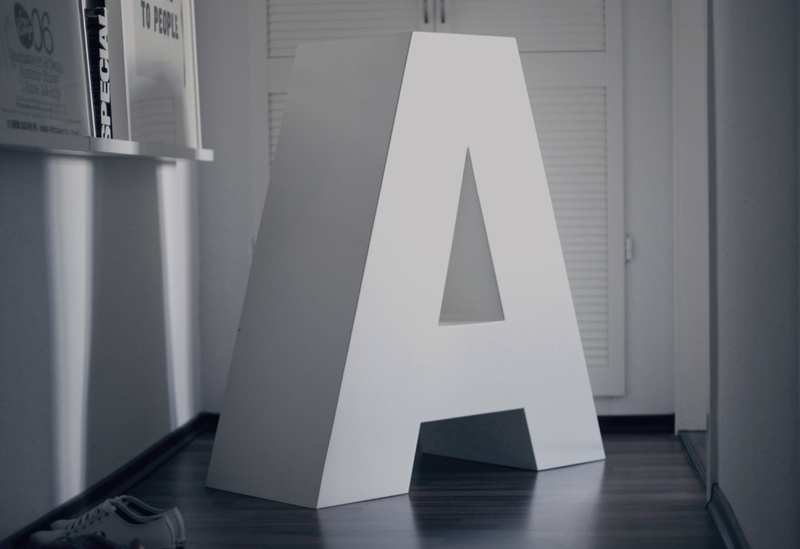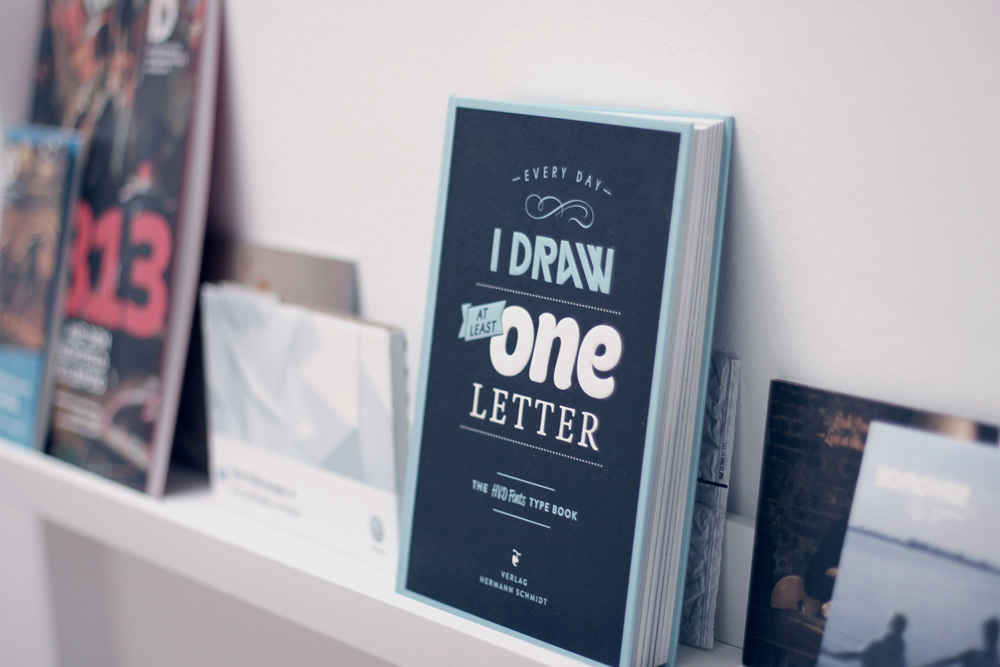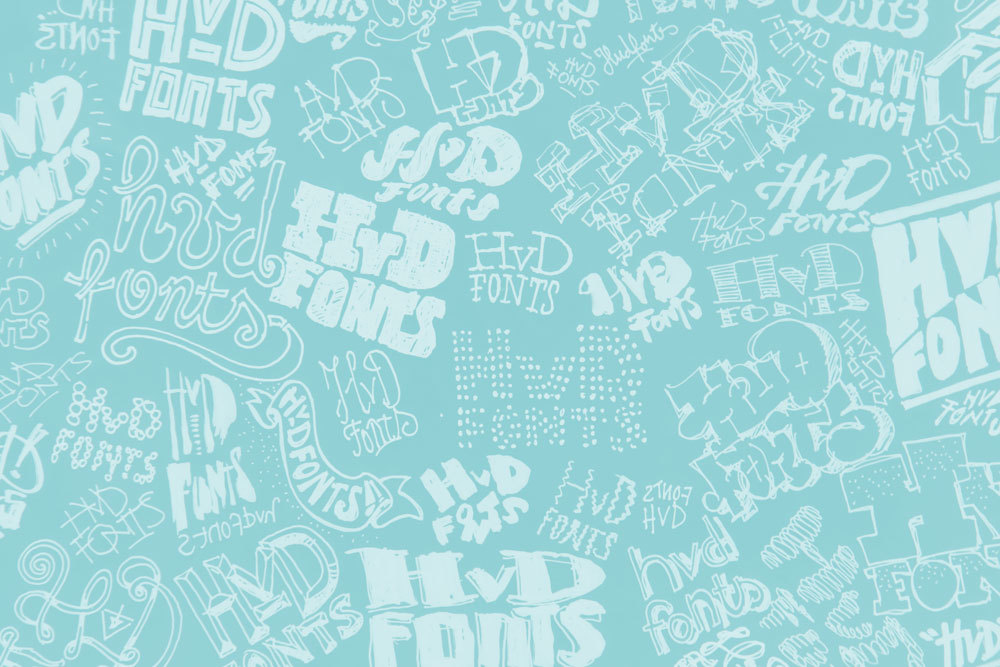
It is the butterflies in your stomach and the glistening sparkle in your eyes when you see a well made ampersand.
Hello! We are HvD Fonts. A type design studio creating curves, forms, systems & solutions – in other words: Typefaces. Started by Hannes von Döhren as a young graphic designer with a passion for letters, HvD evolved to an established type foundry working together with clients, agencies and experts. Using the act of creation itself, as our driving force, we have produced a balanced array of playful and professional typefaces, always underpinned by expert execution, including FF Mark, Pluto, Reklame Script or Brandon Grotesque. One principle of HvD is that we want to deliver fonts of the highest quality level: optically AND technically.
In addition to creating self initiated typefaces, we worked on several bespoke type design projects for clients like Lufthansa, Volkswagen, Hyundai or Wal-Mart. Important or not, but good to mention: We received several design awards for our typefaces including the iF Award, the Red Dot Award or the Certificate of Excellence in Type Design from the Type Directors Club NY.
Drawing letters
HvD Scribbles
Preparing a set
Hvd Book Shelf